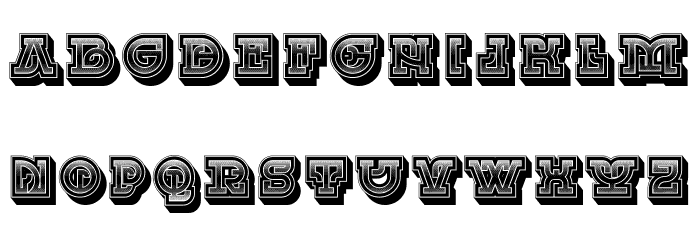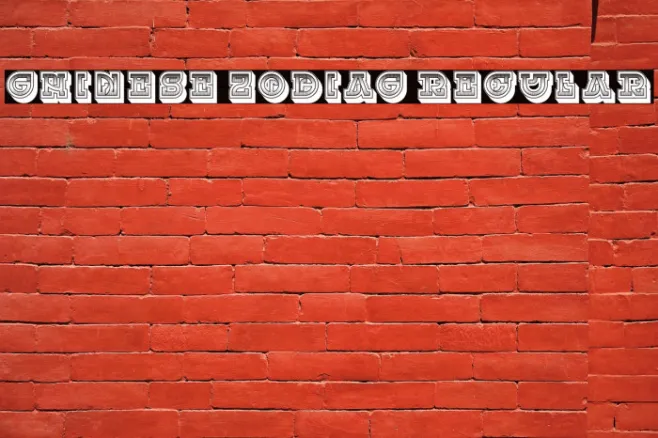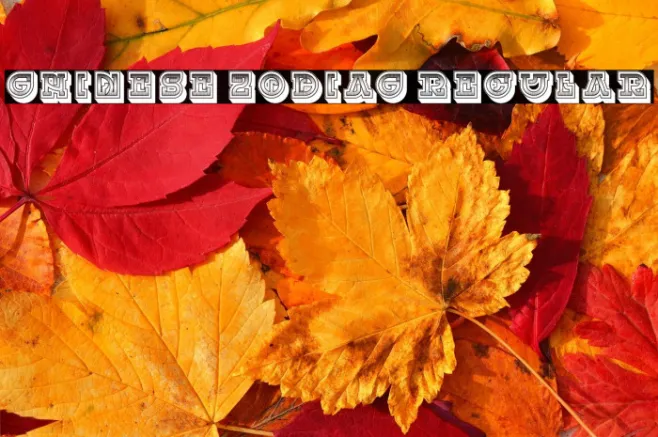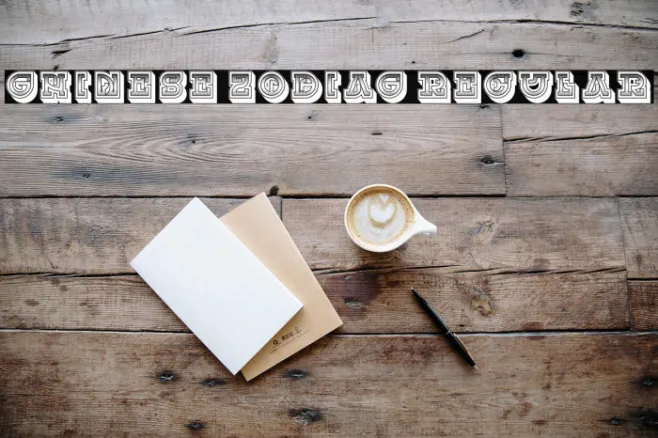
Chinese Zodiac Regular Font
This font features a bold, decorative style with intricate line work and shadowing that gives it a three-dimensional appearance. The characters are heavily stylized, with a strong emphasis on geometric shapes and symmetry. Each letter is outlined with multiple layers, creating a sense of depth and complexity. The design is reminiscent of traditional ornamental motifs, making it suitable for projects that require a touch of elegance and sophistication. The font's unique aesthetic makes it stand out, ideal for eye-catching headlines and artistic designs.
A bold, decorative font with intricate line work and three-dimensional shadowing.
- Proposed Projects: Ideal for posters, logos, event invitations, and any design requiring a bold, artistic touch.